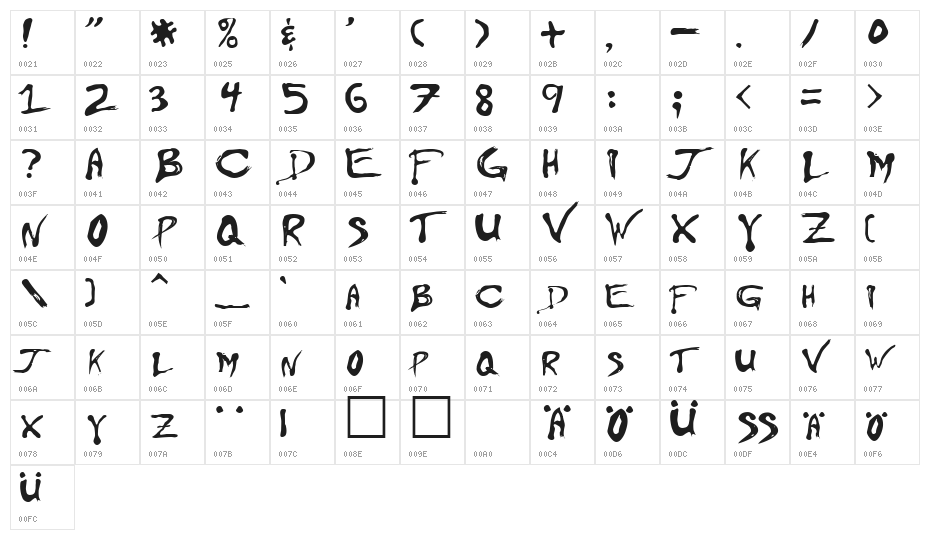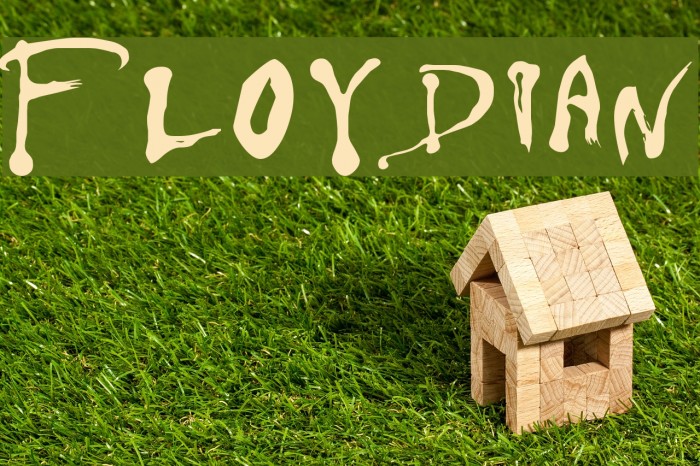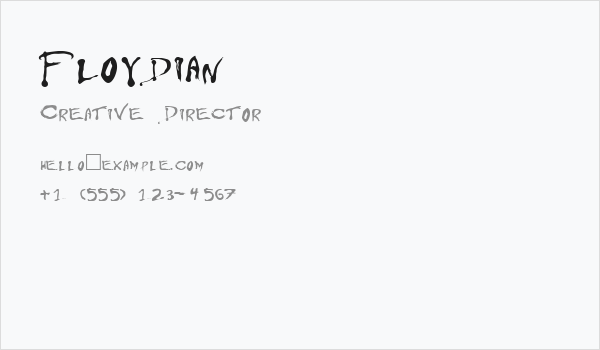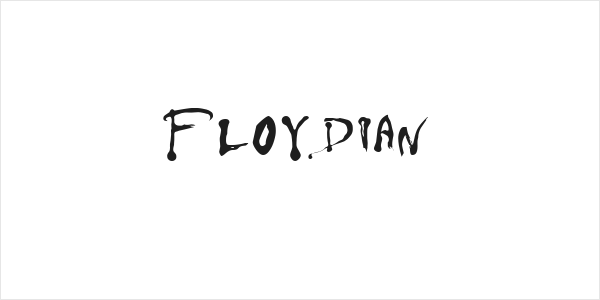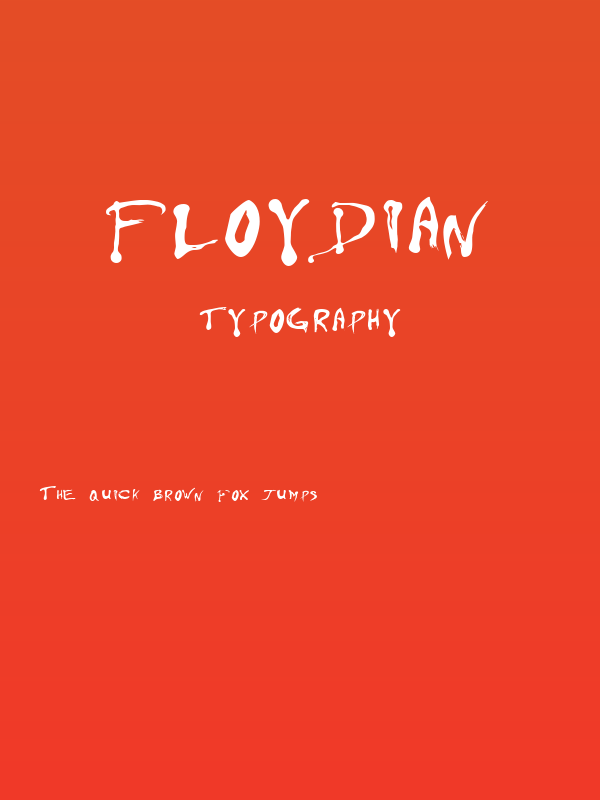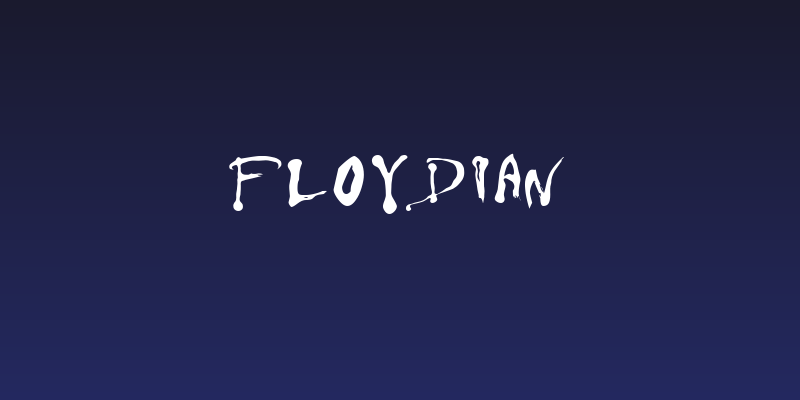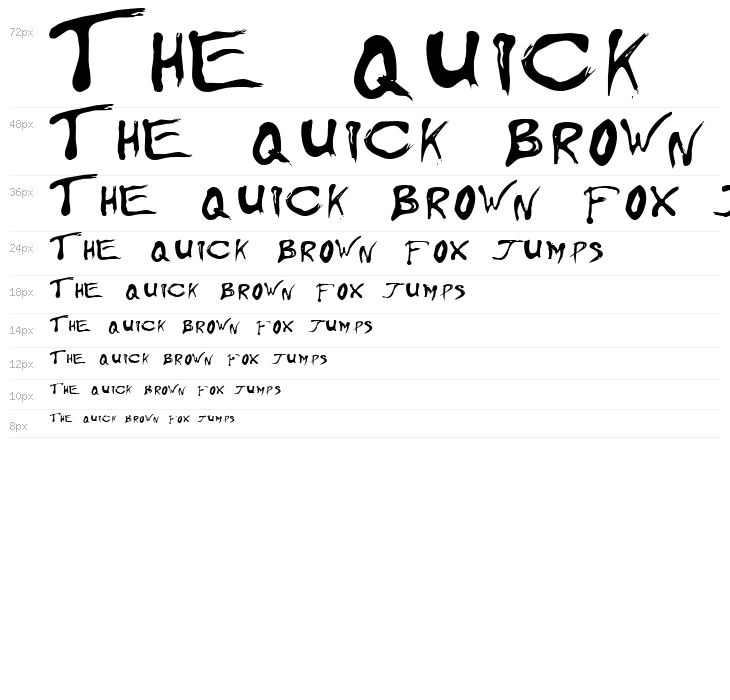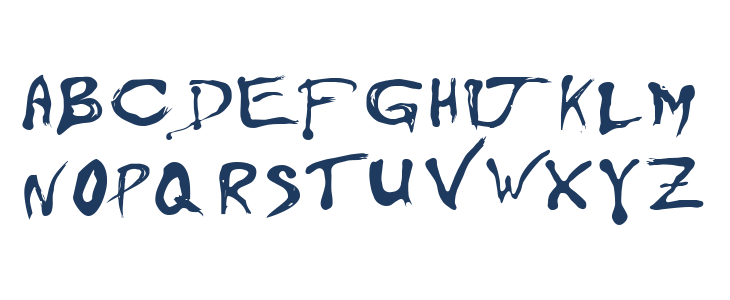
Floydian Font
Floydian Description
This font features a bold and expressive style with a brush-like appearance, giving it a dynamic and artistic feel. The characters are irregular and have a hand-painted look, with varying stroke thickness that adds to its energetic and spontaneous vibe. The uppercase and lowercase letters maintain a consistent style, while the numbers and special characters complement the overall aesthetic. This font is ideal for projects that require a creative and bold statement, such as posters, album covers, or artistic branding.
| Overall Style | Artistic, Expressive |
| Use Case | Headlines, Logos, Artistic projects |
| Proposed Projects | Ideal for posters, album covers, artistic branding, and creative projects. |